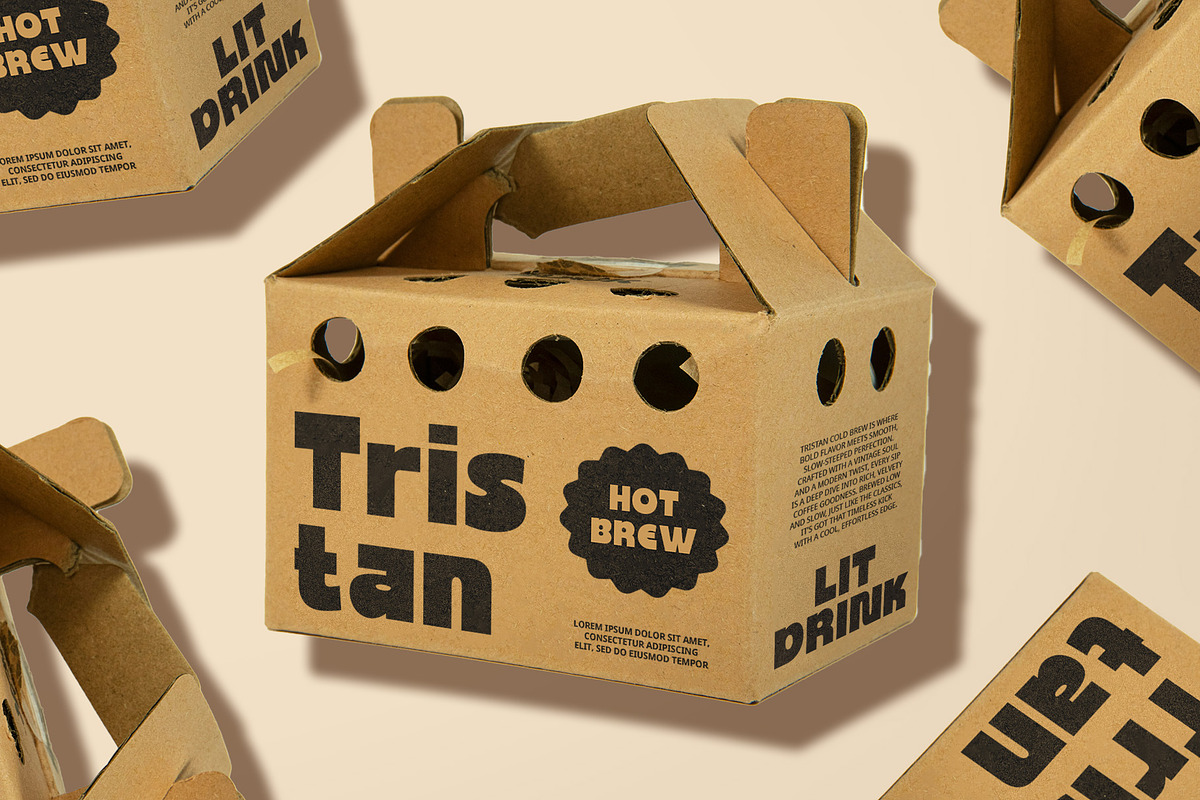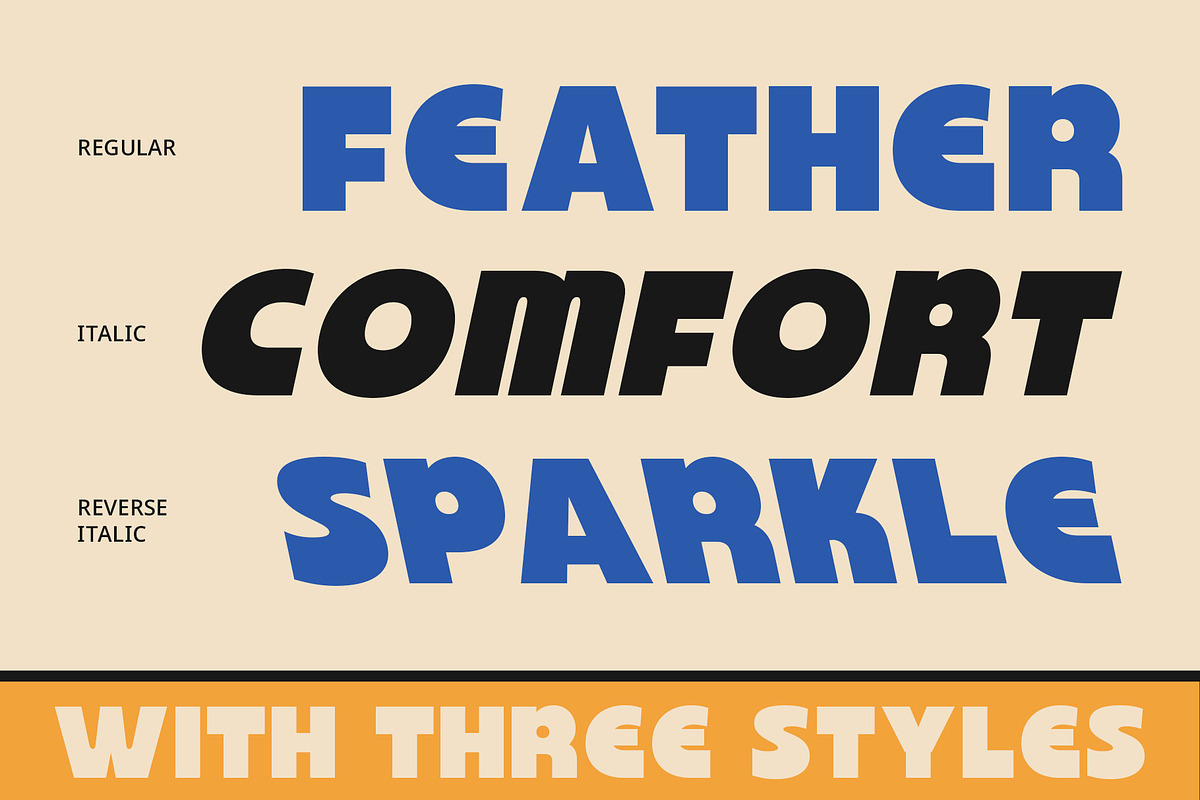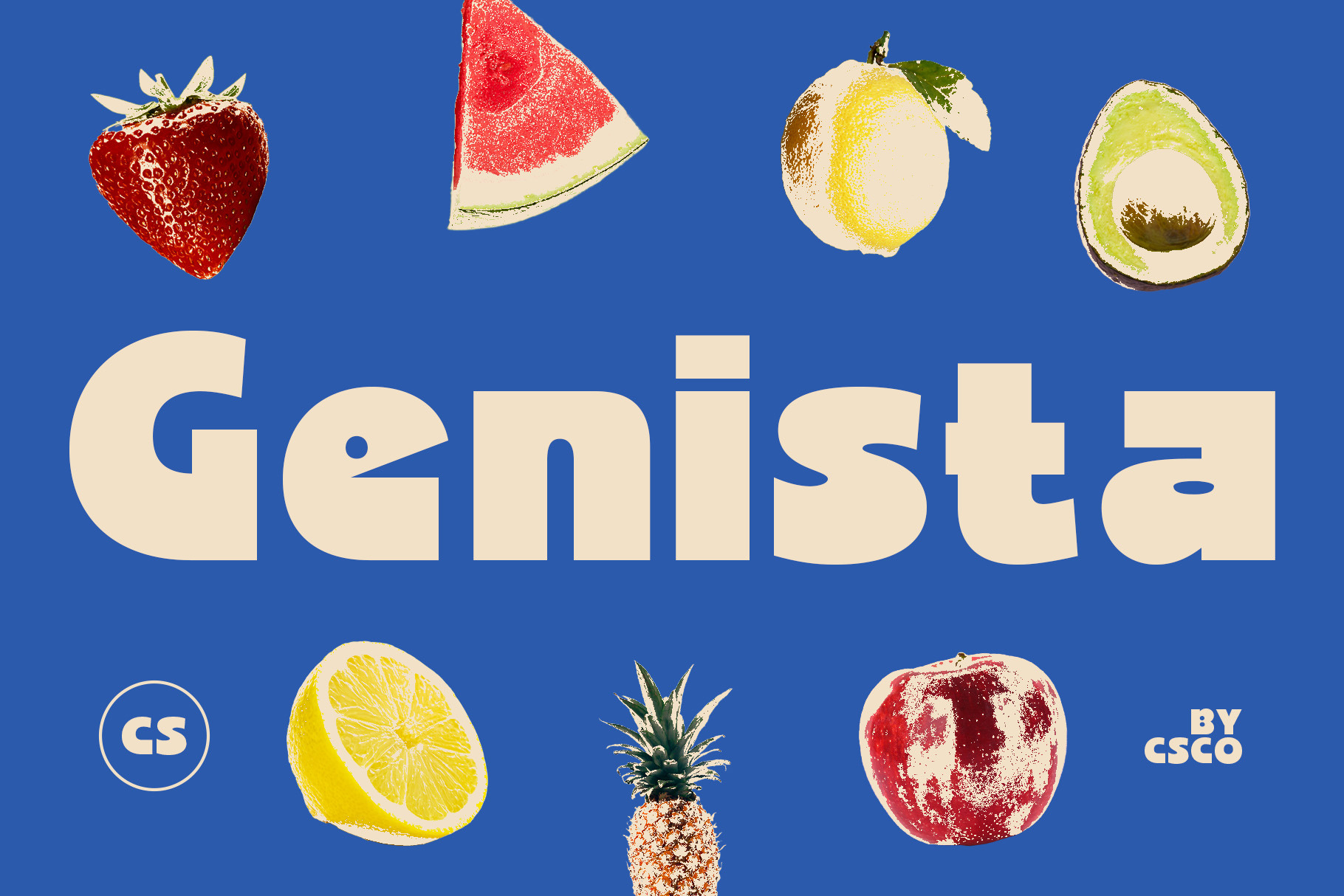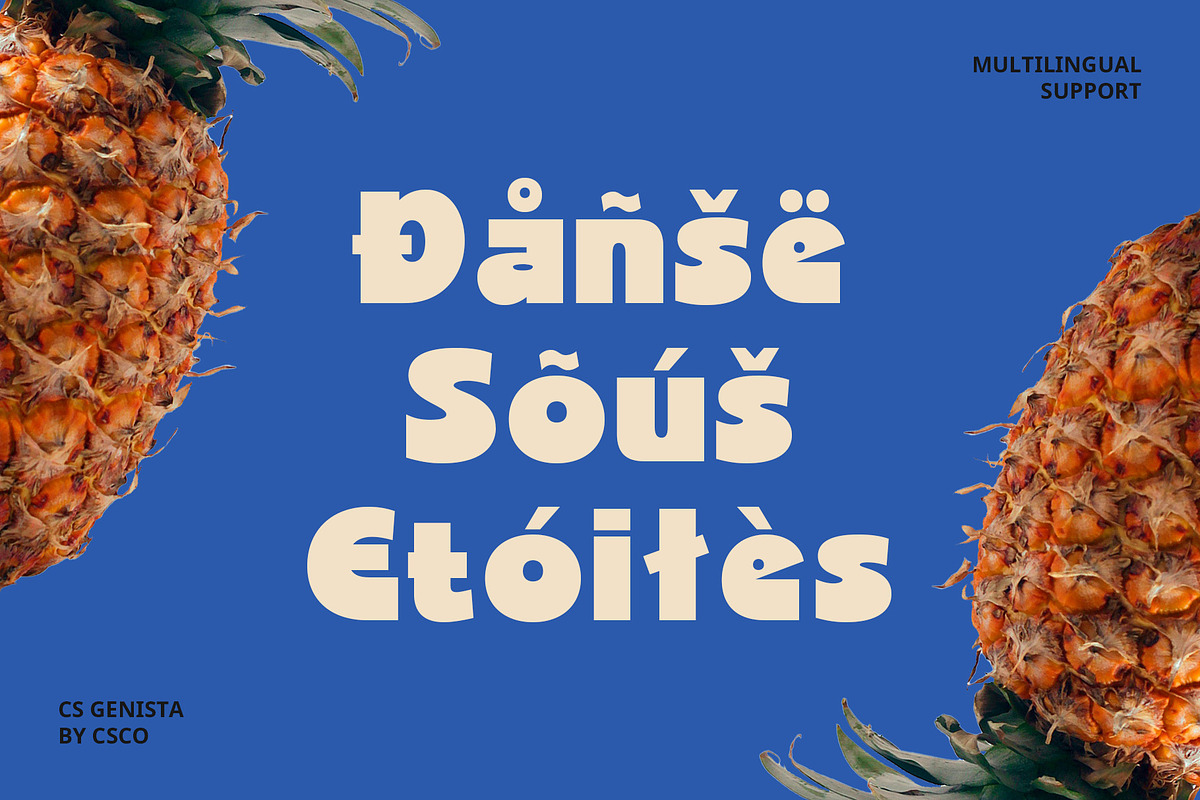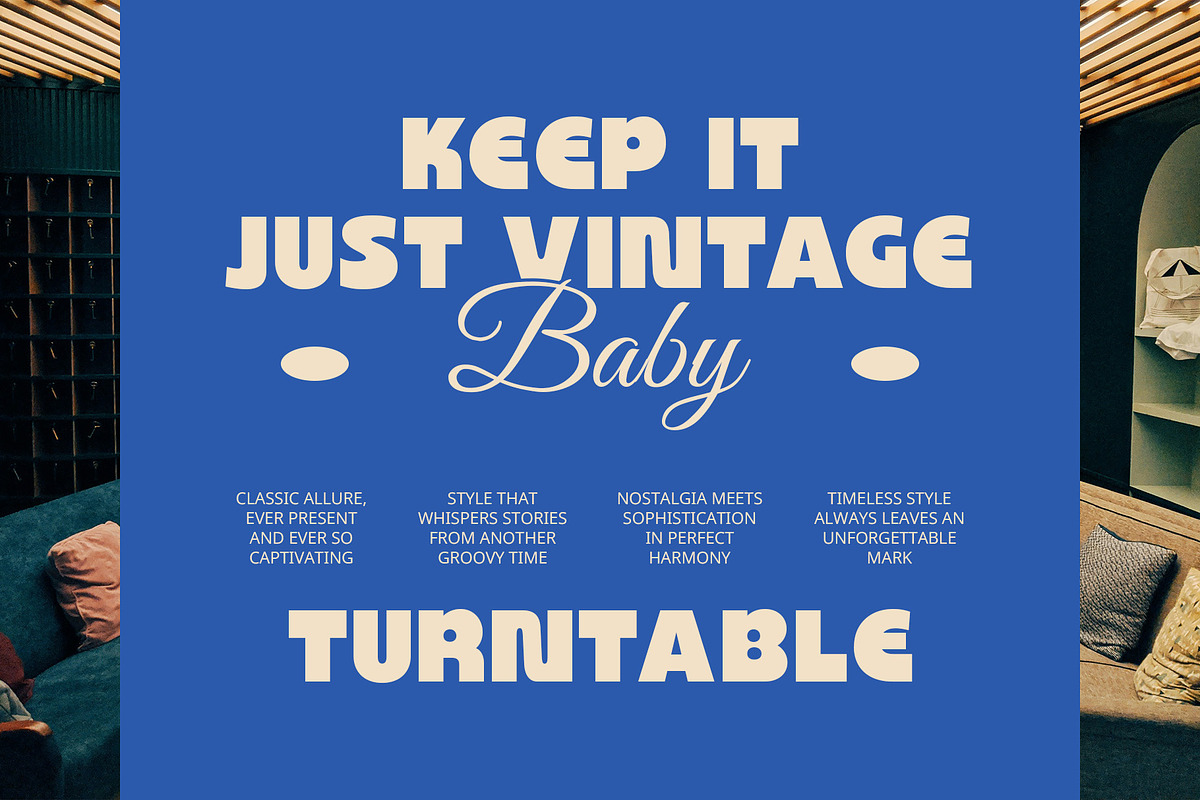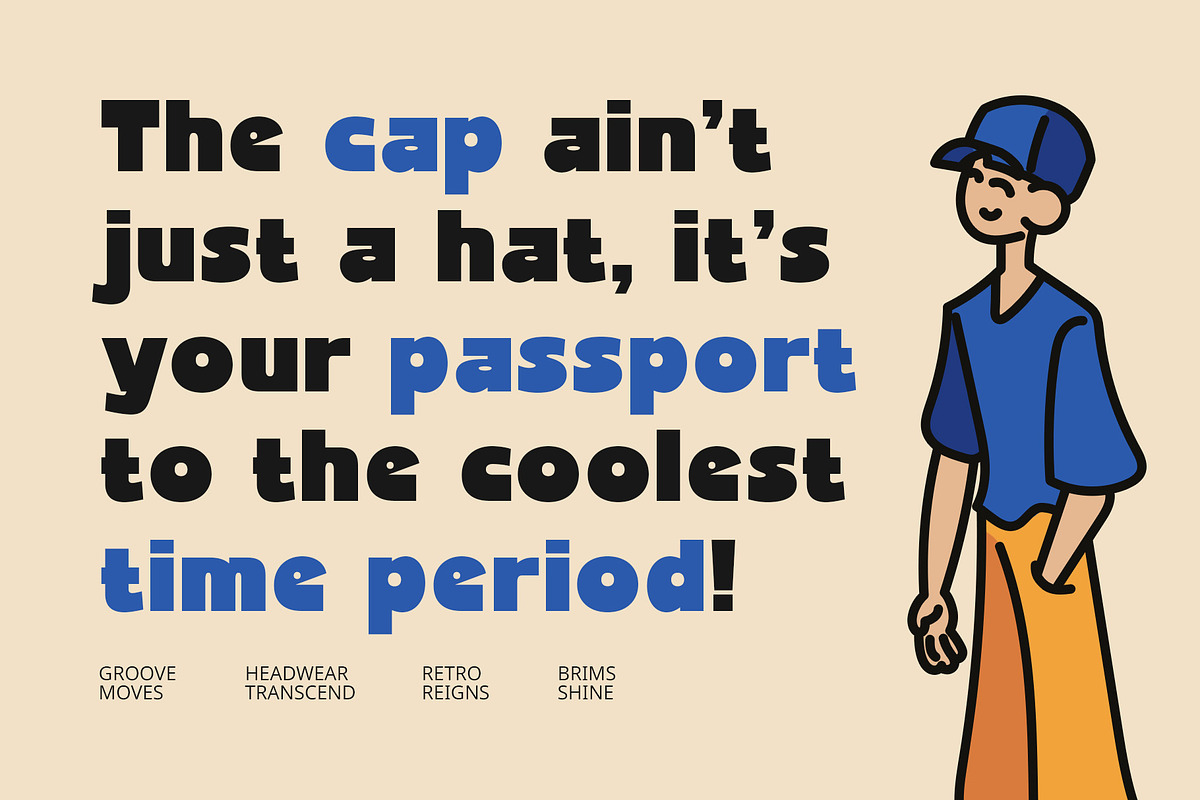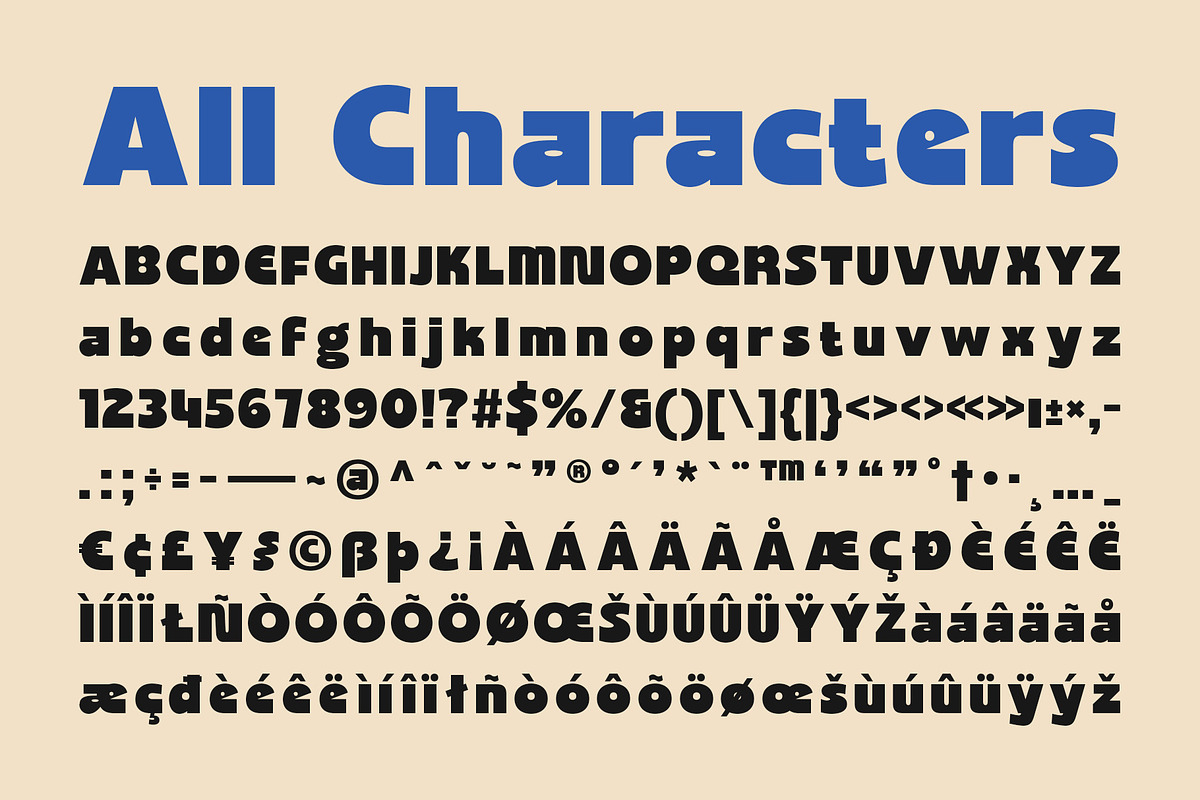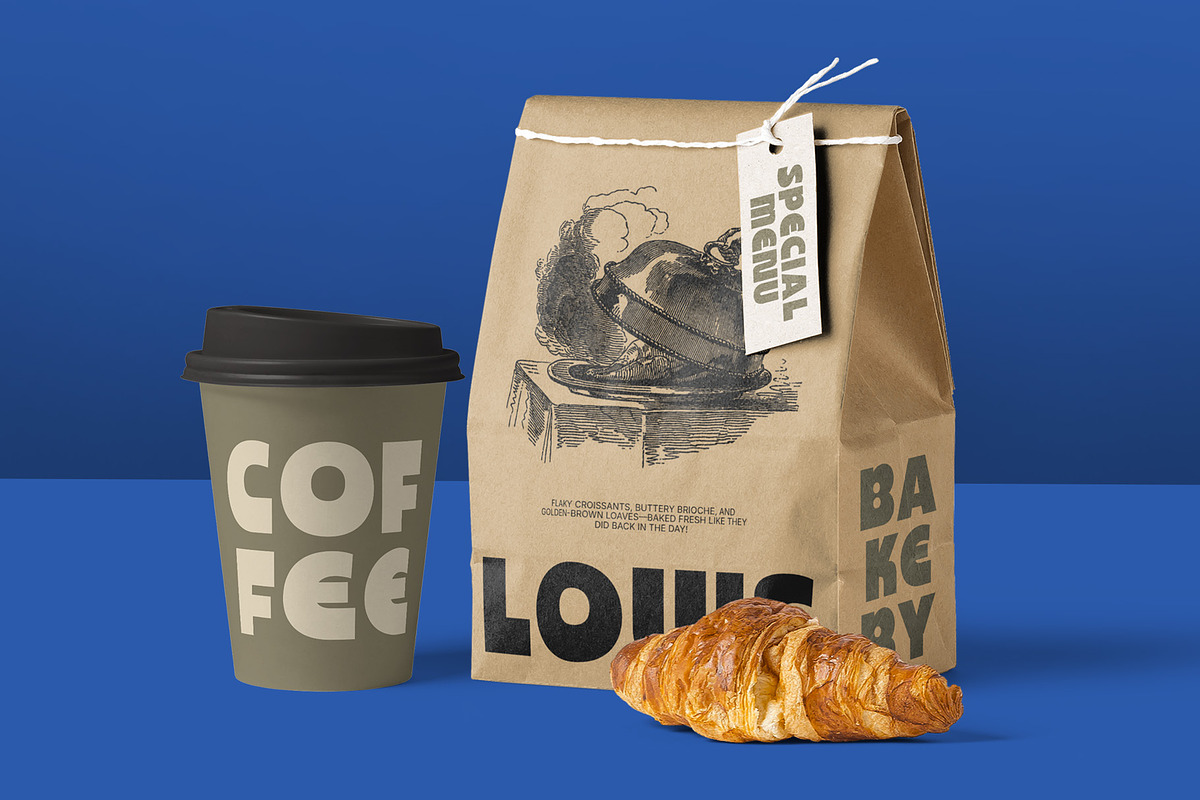
CS Genista – Bold Font
CS Genista – Bold Font: Energetic, Playful, and Retro-Inspired Typography
Funky Retro Vibe with Modern Appeal CS Genista is a bold sans-serif font that brings together the thick, clean letterforms of modern typography with a funky retro twist. Drawing inspiration from the energetic and vibrant design styles of the ’70s and ’80s, this font exudes a sense of fun and confidence. Its clean lines, bold thickness, and slightly curved or dynamic shapes create a lively and upbeat personality, perfect for projects that need a touch of playful nostalgia with a contemporary edge.
Cheerful and Spirited Aesthetic With its no-serifs design and thick, vibrant letterforms, CS Genista radiates a cheerful, spirited impression. The font’s boldness and playful style make it ideal for designs that aim to captivate and energize. It’s perfect for a wide range of creative projects, from music posters to event flyers, branding, and more.
Perfect for Bold, Nostalgic Designs CS Genista’s retro-inspired design is the perfect fit for projects that combine nostalgia with a modern twist. Its bold, funky aesthetic makes it ideal for designs that want to make a statement while keeping a relaxed yet bold vibe. Use it for posters, logos, packaging, or any project that calls for a retro influence with a bold, contemporary update. With its playful character and striking design, CS Genista is sure to leave a lasting impression.